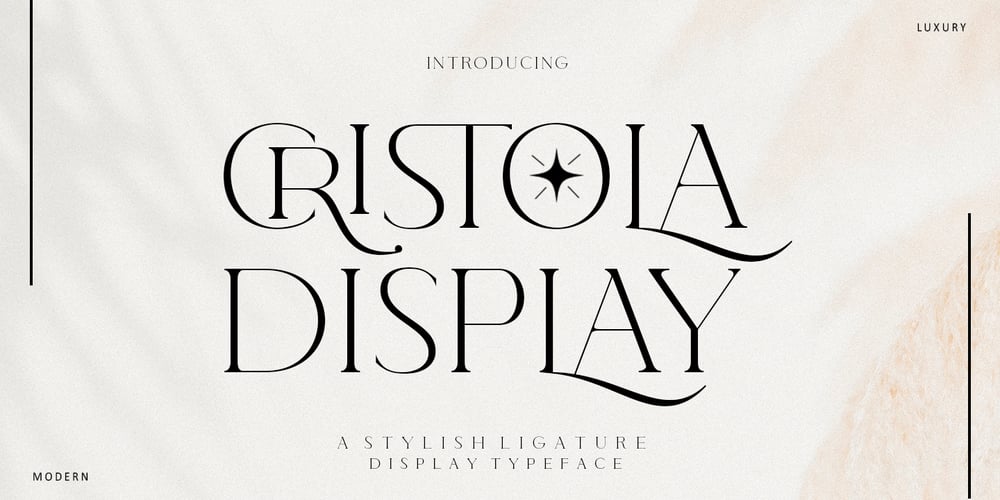
Cristola Display Font Family was designed by Jumm ati and published by Masa Type. Cristola Display contains 1 styles and family package options. Cristola Display is a sophisticated ligature serif from us. This typeface has been made carefully to make sure its premium quality and luxury feel. The ligatures makes this typeface unique and stands out rather than the regular serif font. Very suitable for logo, headline, tittle, and the other various formal forms such as invitations, labels, logos, magazines, books, greeting / wedding cards, packaging, fashion, make up, stationery, novels, labels or any type of advertising purpose.Features :numbers and punctuation multilingual ligatures alternates PUA encodedWe highly recommend using a program that supports OpenType features and Glyphs panels like many of Adobe apps and Corel Draw, so you can see and access all Glyph variations.Email us to masatype195@gmail.com if you need something! Happy Designing!